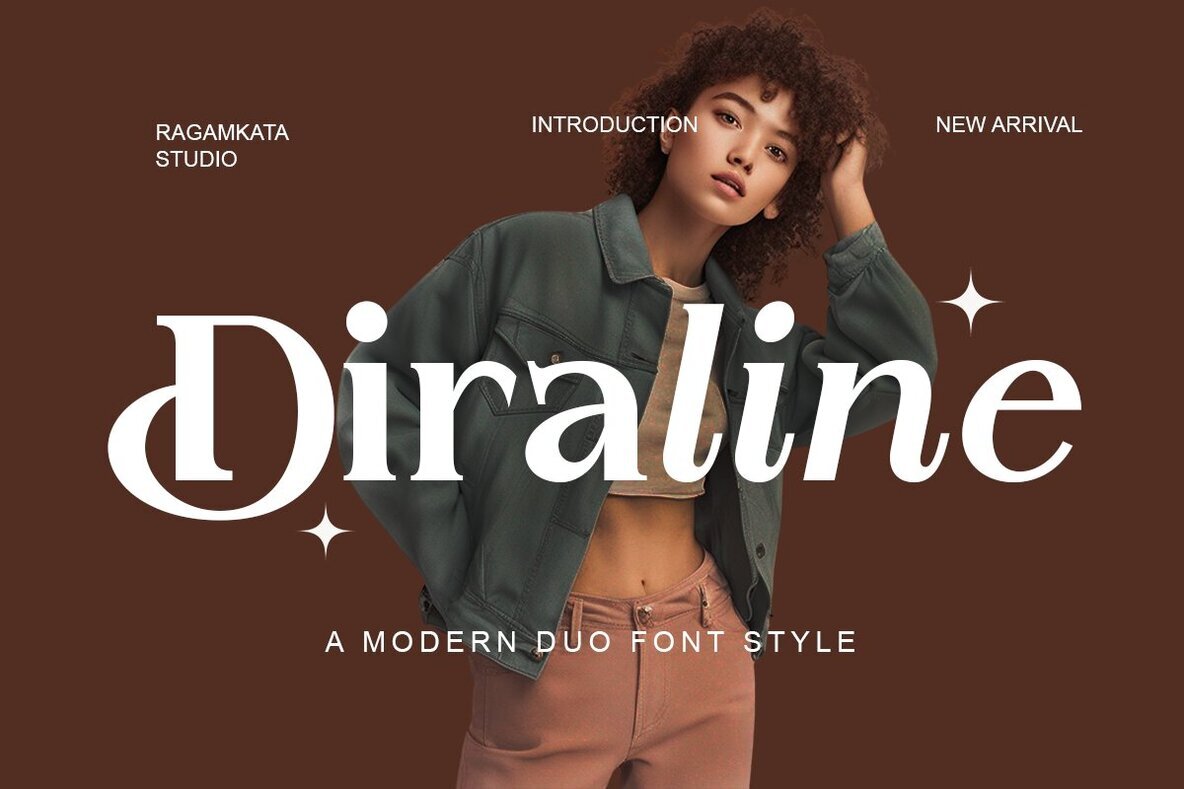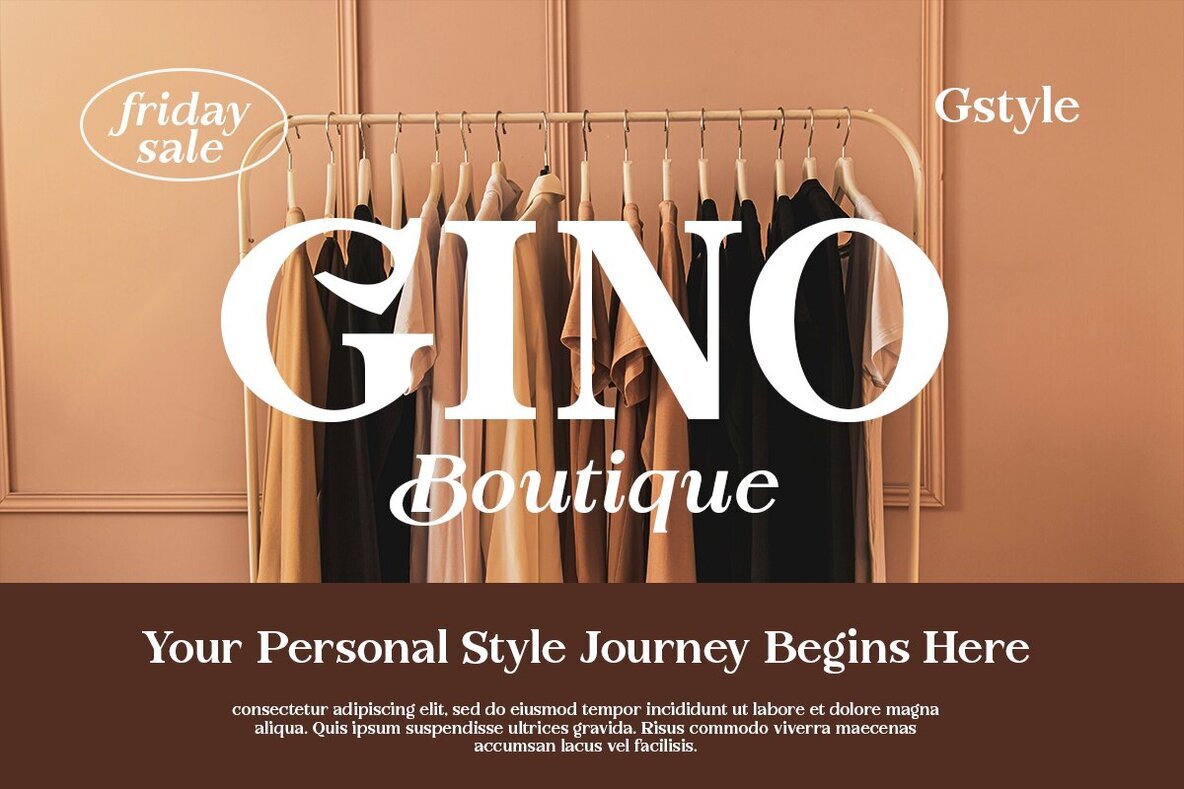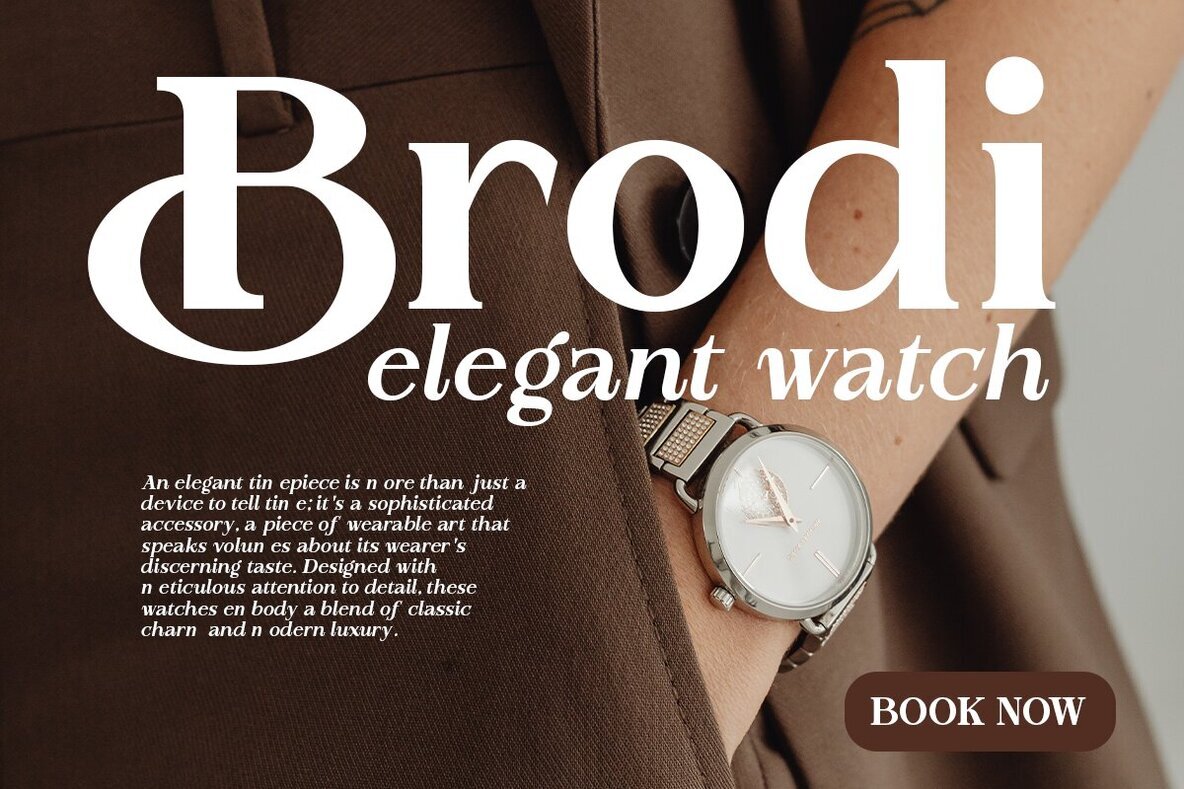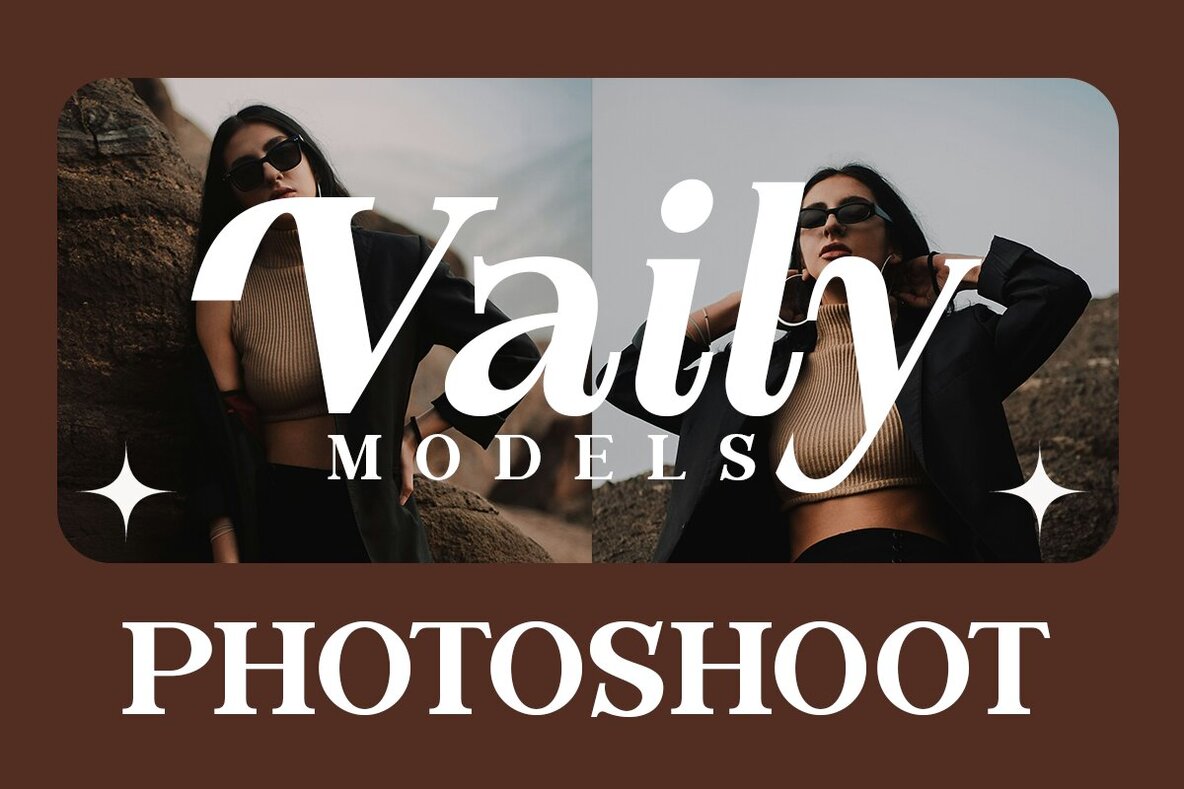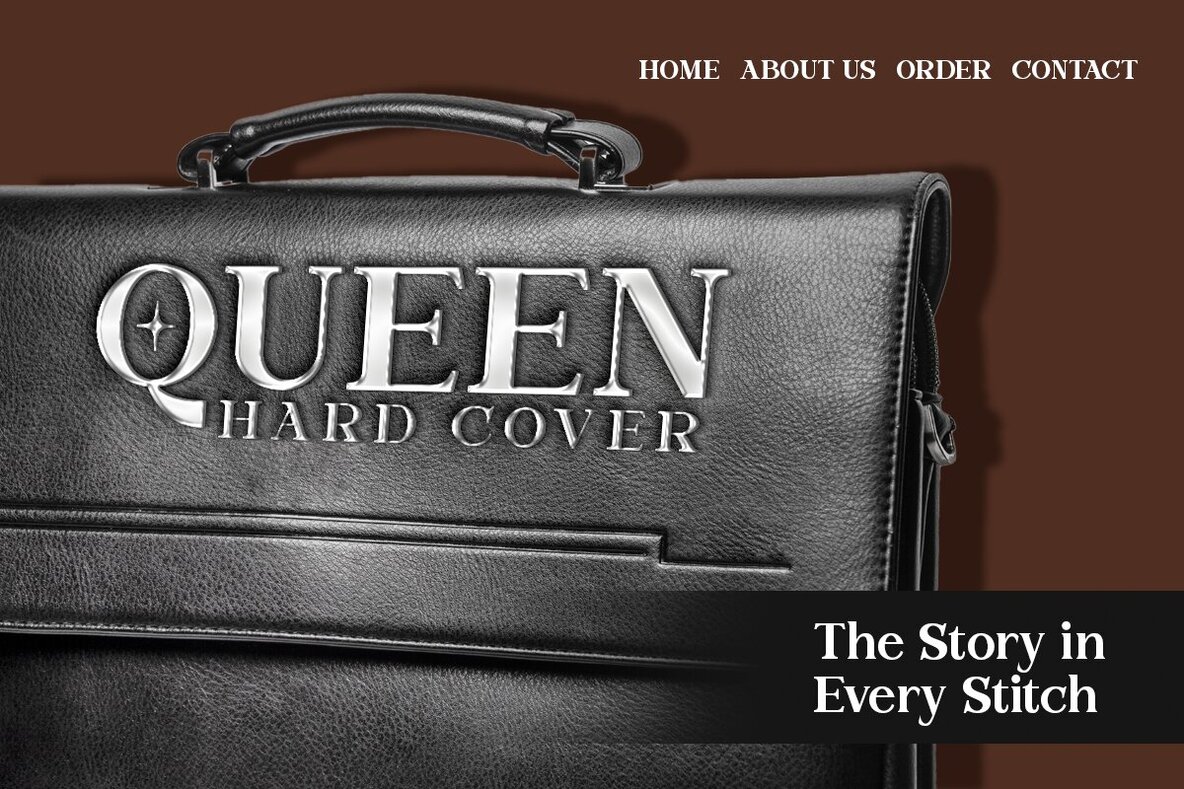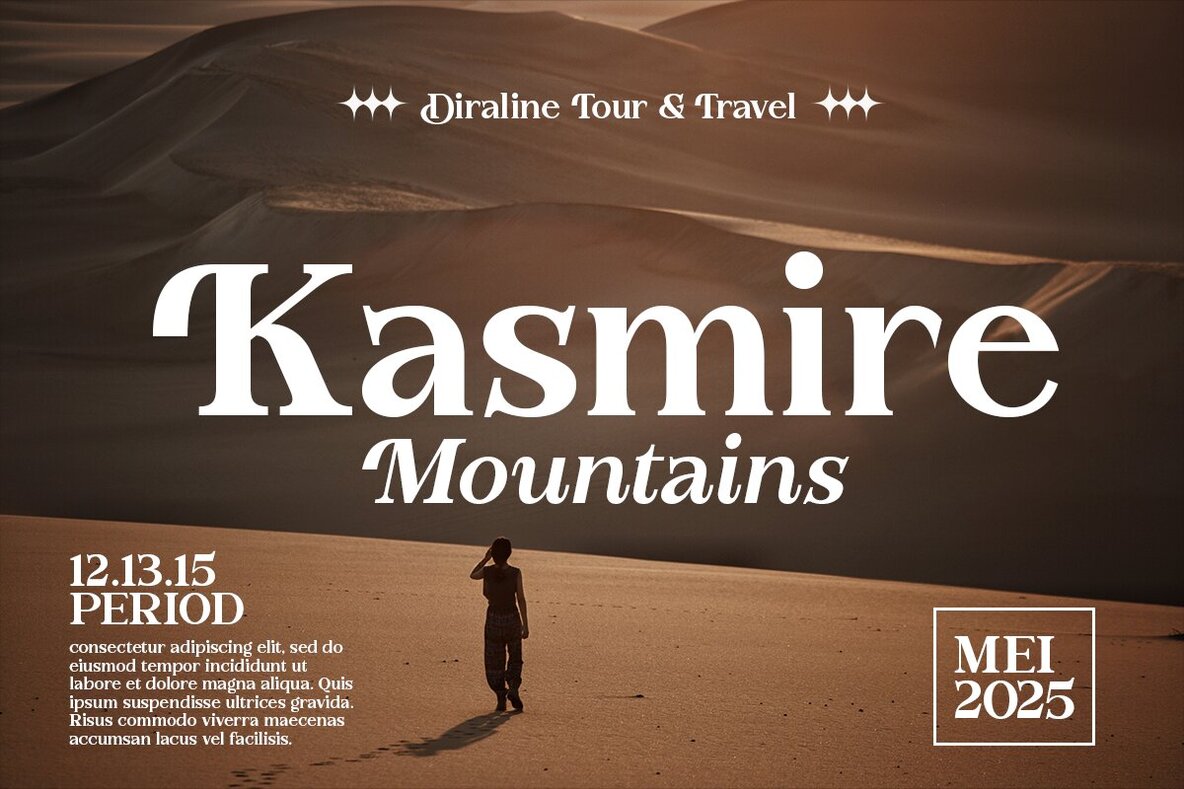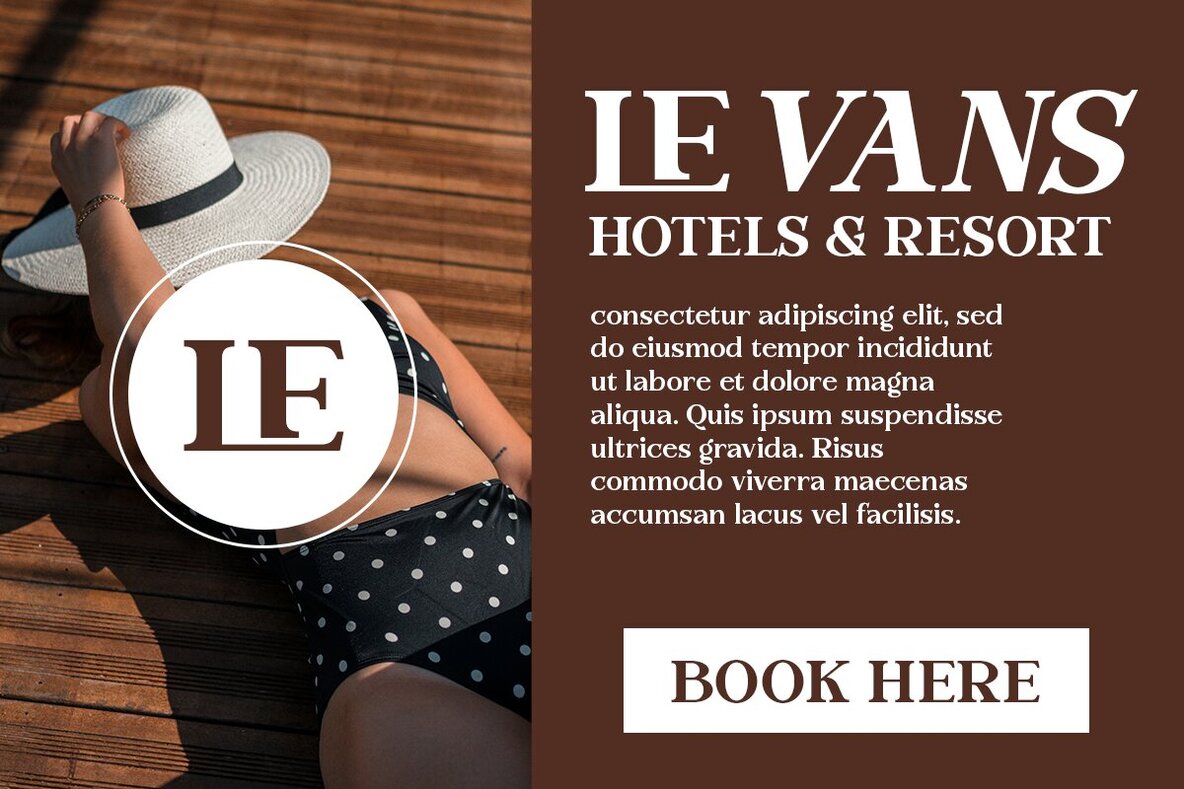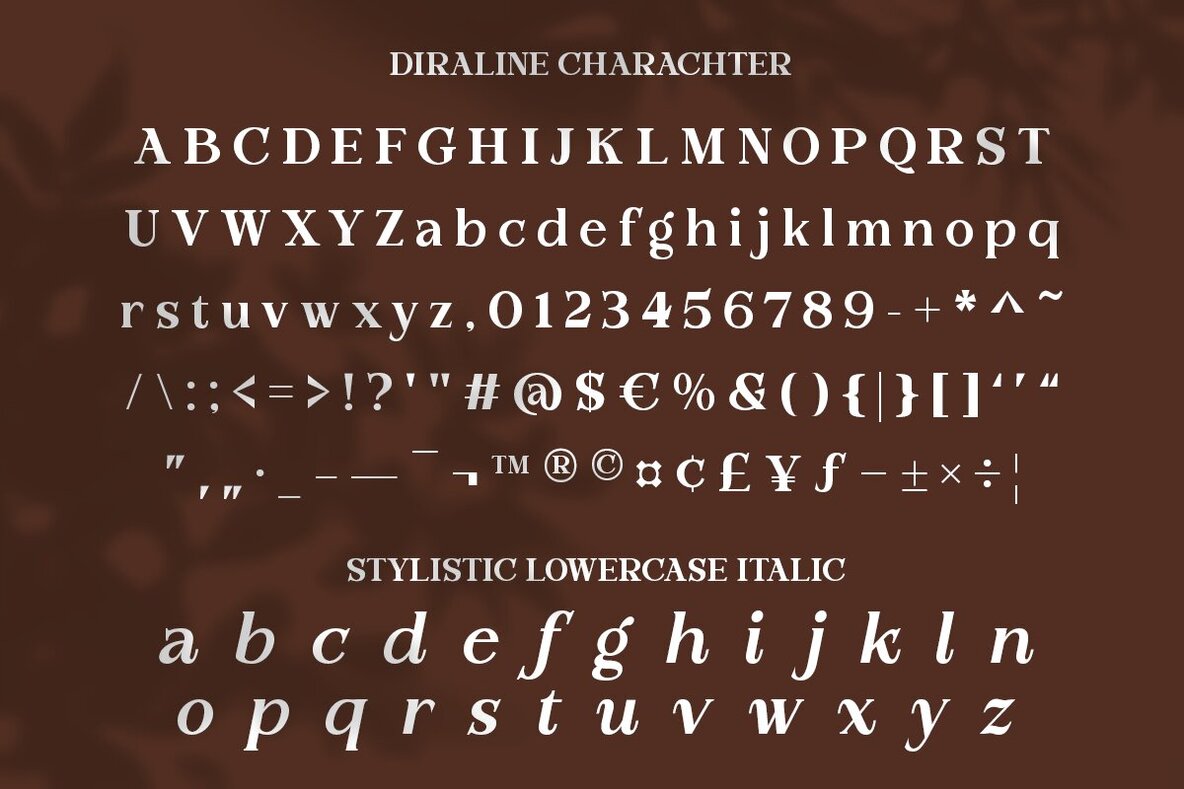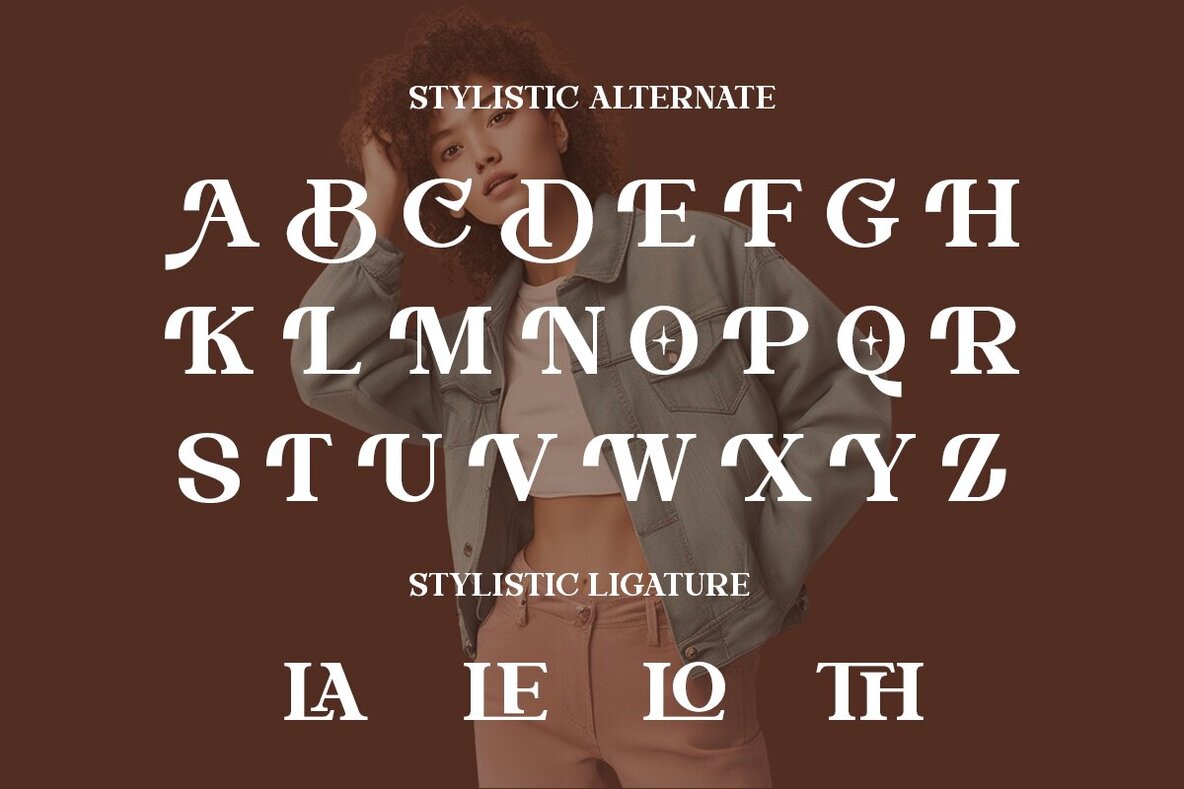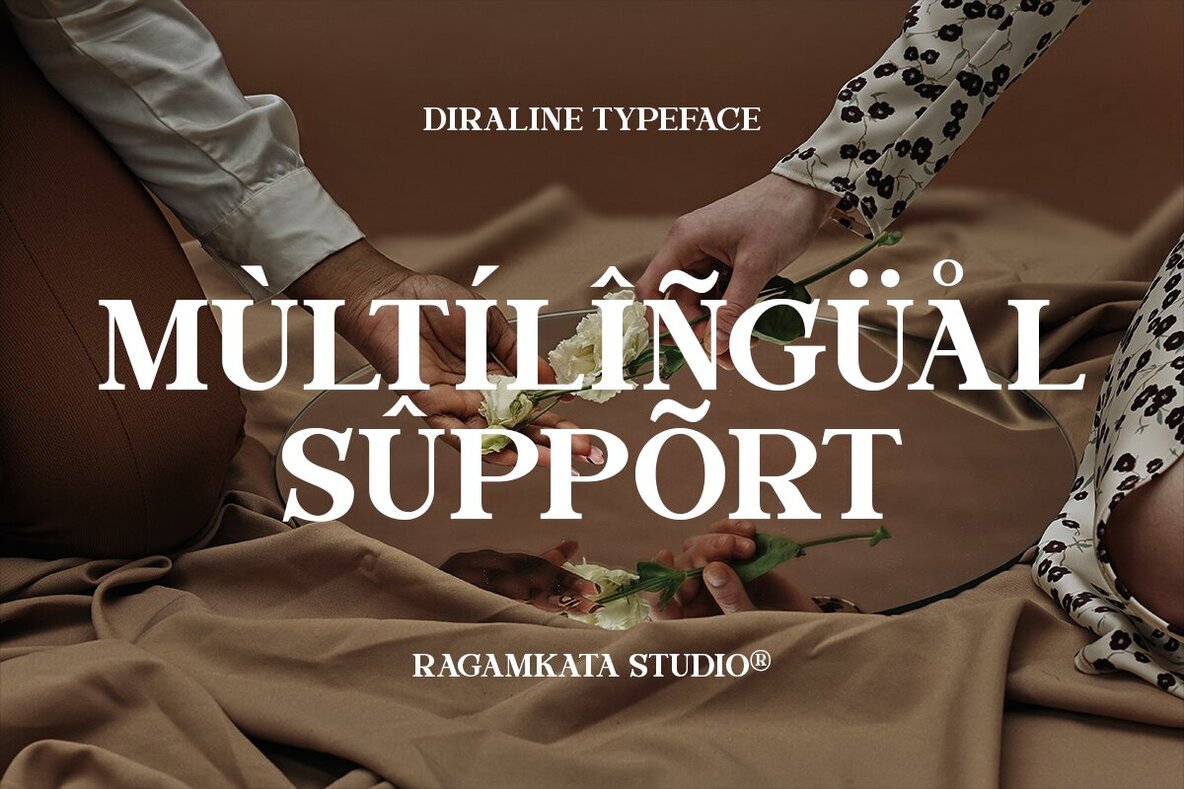
Diraline Font
Diraline is a sophisticated modern serif font that blends elegance with refined sophistication. Crafted with sharp serifs and well-balanced proportions, it adds a contemporary touch to high-end branding projects, editorial designs, and luxury packaging. The typeface features a luxurious italic version that harmonizes tradition and modernity, infusing each word with grandeur and class.Diraline: Modern Elegance in Serif Design